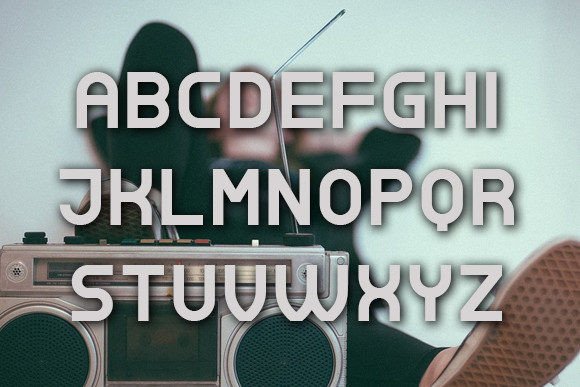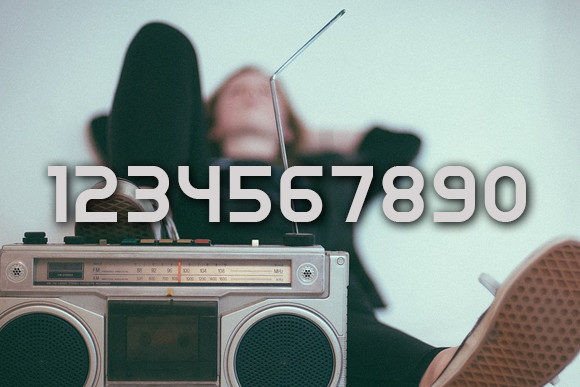
Introduction to Professionista Font
Have you ever stumbled upon a design element that instantly sparks creativity? Maybe it’s the perfect combination of colors, or the subtle nuance of a typography choice. For me, that moment came when I discovered the Professionista Font. Its unique blend of modern elegance and antique charm made me wonder what kind of creative project I could bring to life with this versatile design resource.
As a designer, I can attest that having access to high-quality fonts like Professionista Font is invaluable. With its transparent background and sleek sans-serif style, this font is perfect for a multitude of projects, from posters and crafts to social media posts and headlines. And the best part? You can download it for free, making it an essential addition to any designer’s toolkit.
Key Features of Professionista Font
- High-quality design for professional projects, ideal for creative projects and presentations.
- Available in 6 styles, including regular, bold, italic, and bold italic, offering flexibility for various design needs.
- Designed with a high resolution of 300 DPI, ensuring crisp and clear text display in various print and digital formats.
- Perfect for use in business cards, resumes, and other professional materials where a high-quality font is essential.
Honest Review: Professionista Font
As a designer, I’m always on the lookout for high-quality fonts that can elevate my creative projects. Professionista Font is one such find that has caught my attention. Here’s my honest review.
- Professional look and feel: Professionista Font exudes a sense of sophistication and elegance, making it perfect for corporate communications, business reports, and other high-end design projects.
- Transparent background: The font’s transparent background allows for easy layering and blending with other design elements, giving me more creative freedom.
- Limited language support: Professionista Font is available in a limited range of languages, which might be a drawback for designers working on multilingual projects.
- No bold or italic variants: While the font’s regular style is excellent, I wish there were more variant styles available for added flexibility.
Overall, Professionista Font is a solid choice for designers looking for a high-quality, professional font. Its limitations notwithstanding, I’d recommend it for creative projects that require a touch of sophistication and elegance.
The Professionista Font is a high-quality design resource that can elevate your creative project to the next level. With its clean and modern design, it’s perfect for any professional or personal project that requires a touch of sophistication.
To get the most out of the Professionista Font, use it with a transparent background to create a clean and modern design. You can also experiment with different font sizes and colors to create a unique look.
The Professionista Font is perfect for creating professional-looking designs, such as business cards, resumes, and presentations. It’s also great for personal projects, such as blog posts, social media graphics, and infographics.